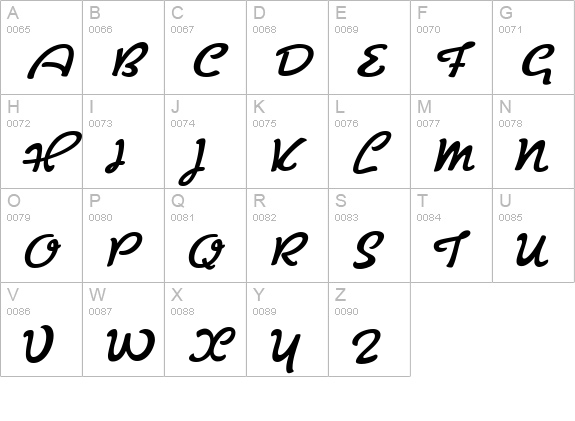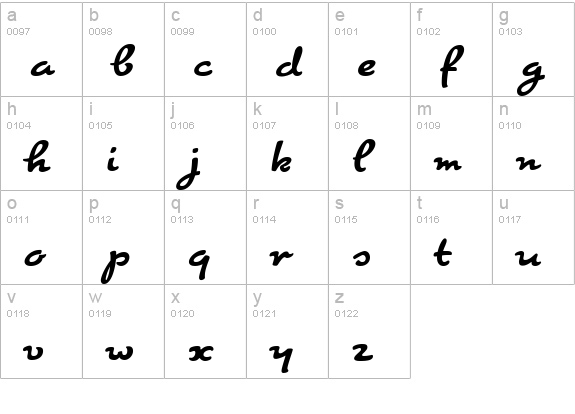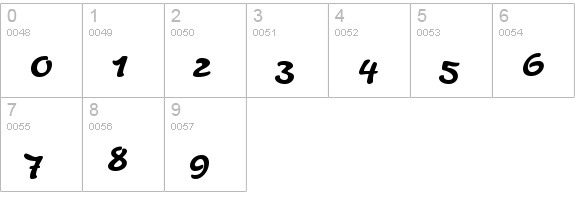
Cuisine Font Details
Cuisine font is a sleek and elegant typeface that brings a touch of sophistication to any design project. With its clean lines and modern look, Cuisine font is perfect for a variety of uses, from branding to editorial design. Whether you're looking to create a professional logo or design a stylish menu, Cuisine font is sure to impress. And the best part? Cuisine font is completely free to download at FontsMarket.com. This means you can easily access this high-quality font without breaking the bank. Don't miss out on the opportunity to enhance your designs with the beautiful Cuisine font – download it today and take your projects to the next level!